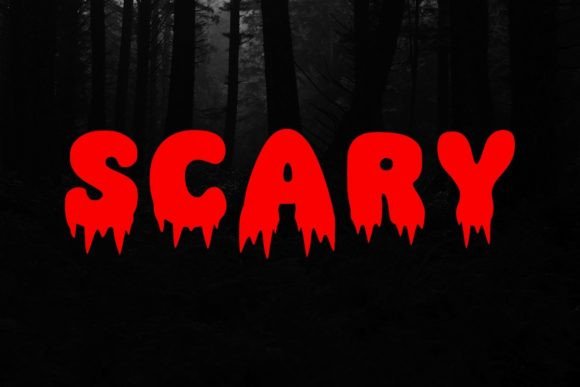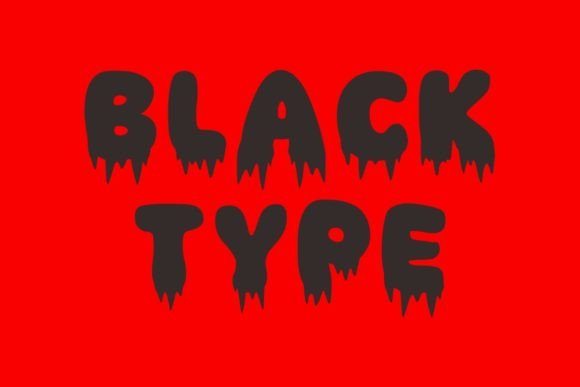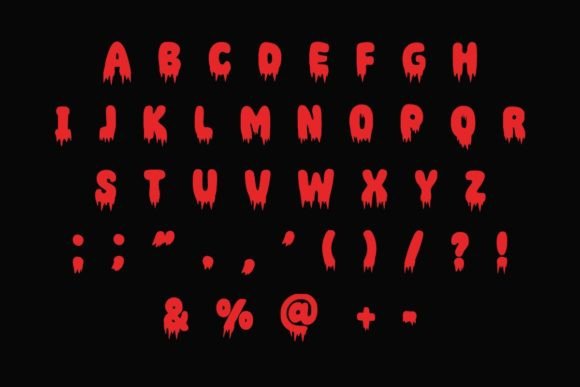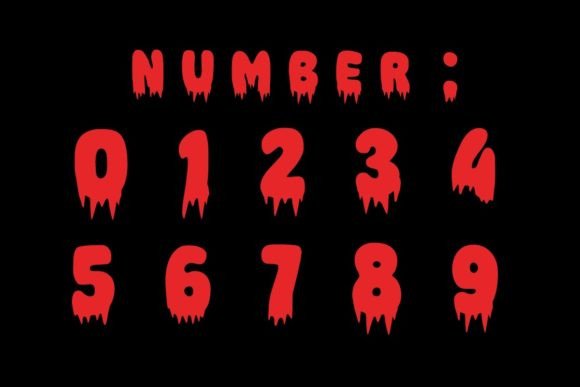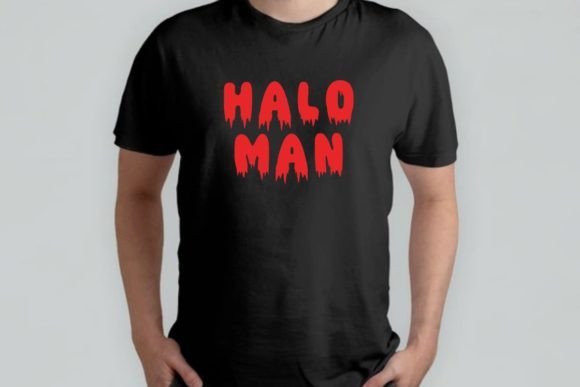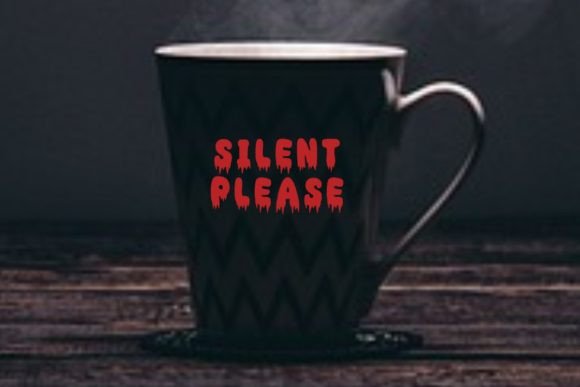
Unleash the Terror with Bankong Font: The Ultimate Horror Display Font
Are you looking for a font that can add a spine-tingling touch to your designs? Look no further than Bankong Font, a horror and scary display font that is perfect for any project that requires a eerie and unsettling feel. In this article, we’ll dive into the world of Bankong Font and explore its features, uses, and benefits for designers and crafters.
What is Bankong Font?
Bankong Font is a unique and terrifying display font that is designed to evoke a sense of horror and fear. Its irregular and distressed texture gives it a creepy and unsettling appearance, making it perfect for projects that require a bold and eerie feel. Whether you’re designing a logo, branding materials, or Halloween-themed decorations, Bankong Font is sure to make a lasting impression.
Features of Bankong Font
Bankong Font comes with a range of features that make it a versatile and powerful font for designers and crafters. Some of its key features include:
- Horror and scary theme: Bankong Font is specifically designed to evoke a sense of horror and fear, making it perfect for Halloween-themed projects or any design that requires a creepy feel.
- Display font: Bankong Font is a display font, which means it’s designed to be used in large sizes, making it perfect for headlines, titles, and other attention-grabbing elements.
- Irregular and distressed texture: The font’s irregular and distressed texture gives it a unique and creepy appearance that is sure to stand out.
Uses of Bankong Font
Bankong Font can be used for a wide range of projects, including:
- Blog posts: Add a creepy touch to your blog posts with Bankong Font, perfect for horror-themed articles or Halloween-themed content.
- Logos and branding: Create a bold and memorable logo with Bankong Font, perfect for horror-themed businesses or brands.
- Ads and invitations: Use Bankong Font to create eye-catching ads and invitations that are sure to grab attention.
- Greeting cards and planners: Add a touch of horror to your greeting cards and planners with Bankong Font, perfect for Halloween-themed designs.
- Photo albums and decorations: Use Bankong Font to create creepy and unique photo albums and decorations, perfect for horror-themed parties or events.
Benefits of Using Bankong Font
There are many benefits to using Bankong Font for your design projects. Some of the key benefits include:
- Unique and creative: Bankong Font is a unique and creative font that can add a touch of horror and fear to your designs.
- Versatile: Bankong Font can be used for a wide range of projects, from blog posts and logos to ads and invitations.
- High-quality: Bankong Font is a high-quality font that is designed to produce crisp and clear results, even at large sizes.
Tips for Using Bankong Font
Here are some tips for using Bankong Font effectively in your designs:
- Use it sparingly: Bankong Font is a bold and attention-grabbing font, so use it sparingly to avoid overwhelming your design.
- Pair it with other fonts: Bankong Font can be paired with other fonts to create a unique and creative contrast.
- Experiment with colors: Bankong Font can be used with a range of colors, from bold and bright to dark and muted.
Bankong Font is a powerful and versatile font that is perfect for designers and crafters who want to add a touch of horror and fear to their designs. With its unique and creative texture, Bankong Font is sure to make a lasting impression on your audience. Whether you’re designing a logo, branding materials, or Halloween-themed decorations, Bankong Font is the perfect choice.